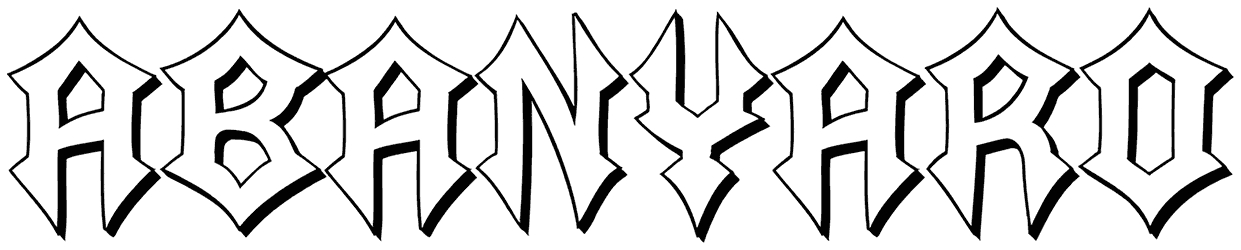
Abanyaro Font
A well-crafted font can convey the purpose of your writing and lead your viewer to your goal. This one is good for you if your words need a bit of medieval or a splash of gothic vibes. The style of the Abanyaro font is one of those hollow ones with a few shadowy backgrounds, and the letters are pointy.
You can use this Renaissance font for Renaissance fairs and book titles. No lowercases, numeral, or punctuational character is included in Abanyaro.